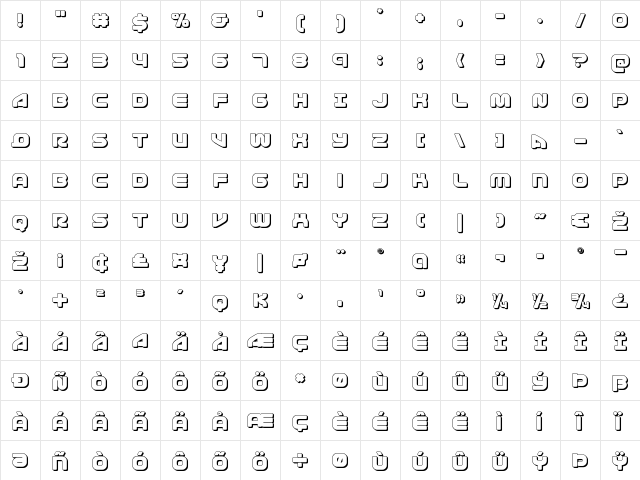
1st Enterprises 3D Regular Font Preview
1st Enterprises 3D Regular
Design Context for 1st Enterprises 3D Typeface
1st Enterprises 3D is a composed and adaptable typeface that performs quietly and consistently across a wide range of design contexts.